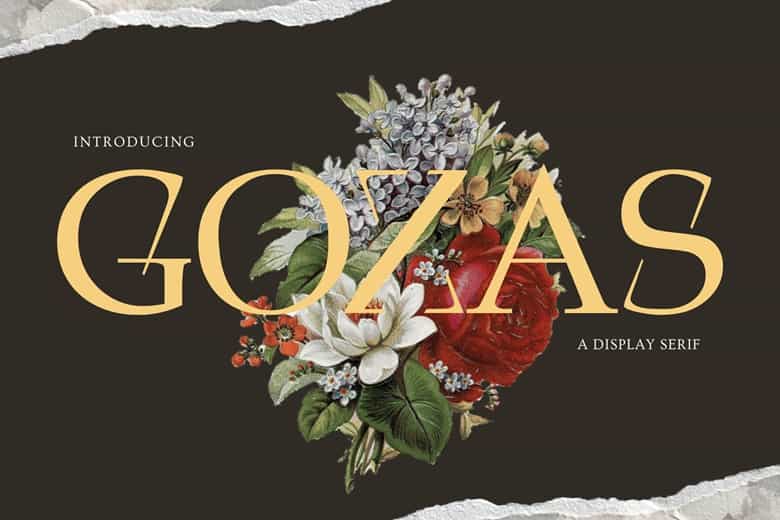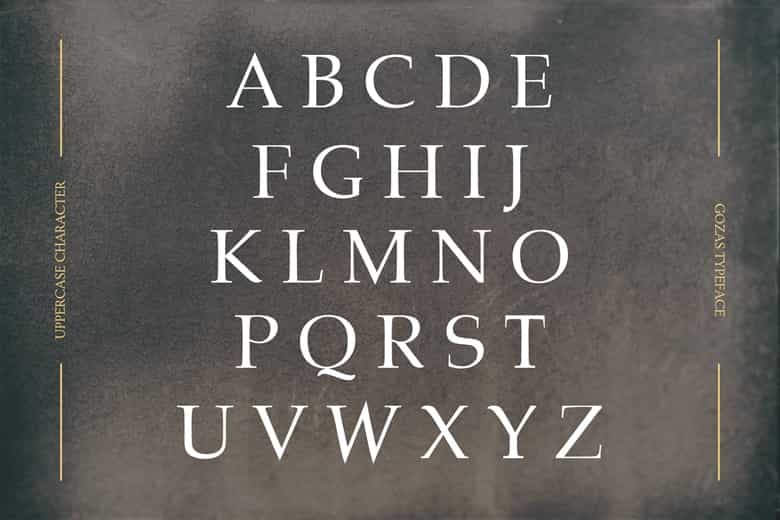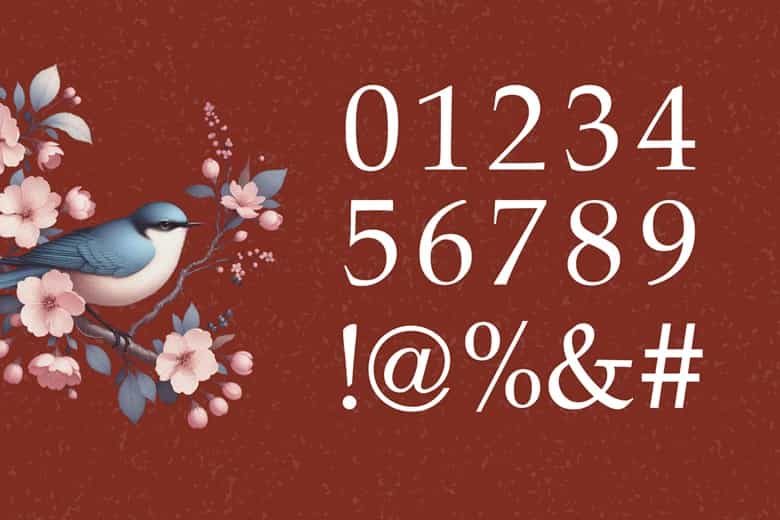
Gozas is an elegant display serif font with dramatically elongated serifs, exuding sophistication and vintage glamour. This font reflects the essence of the 1920 era because it combines sharp lines with curves for a very elegant appearance.